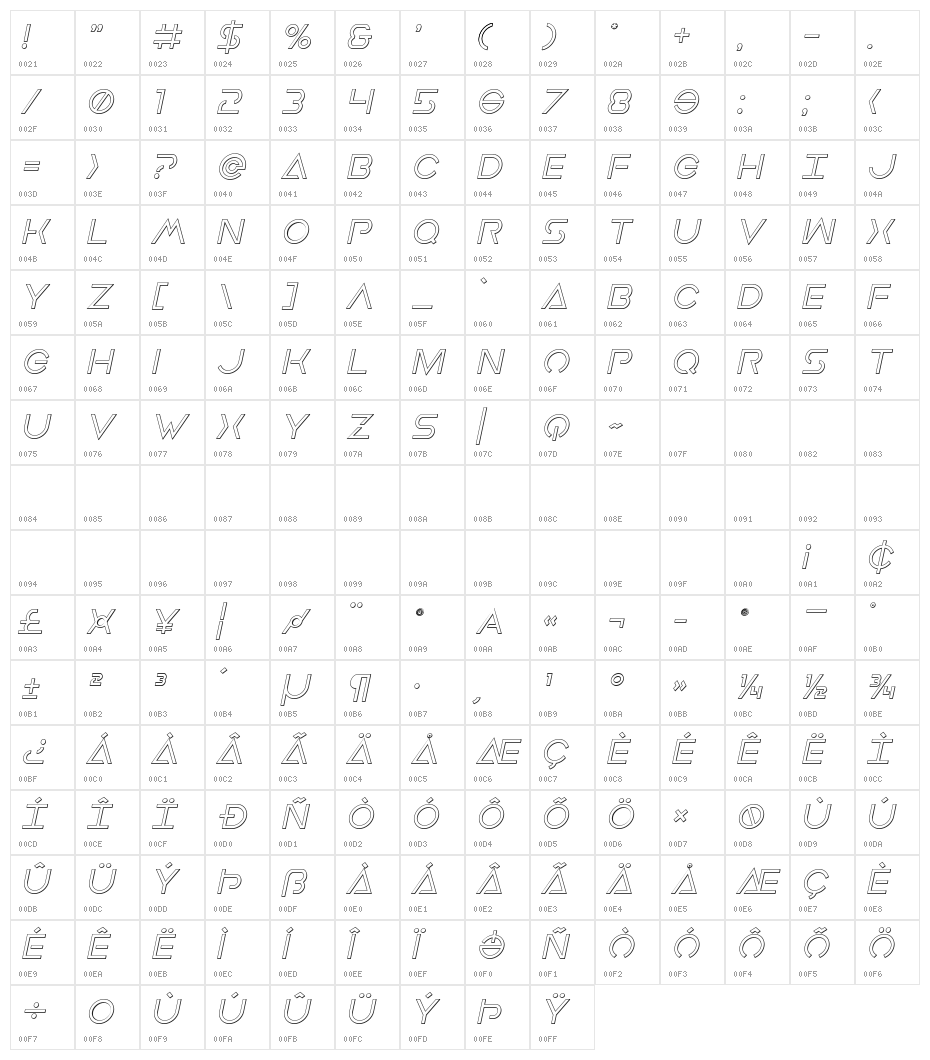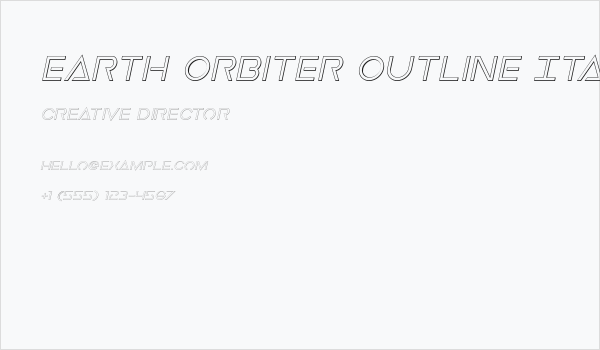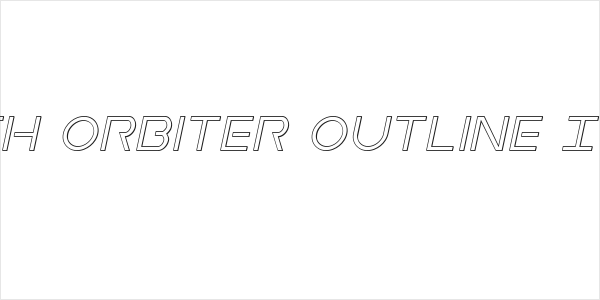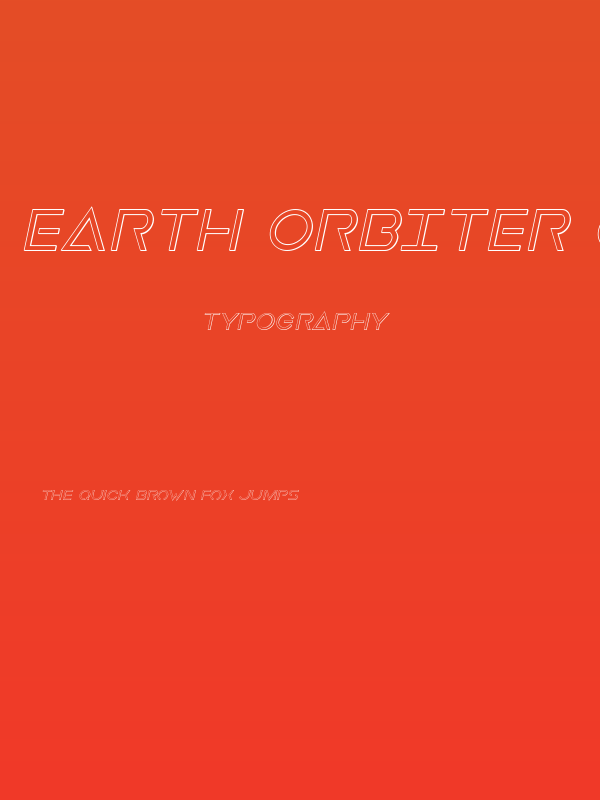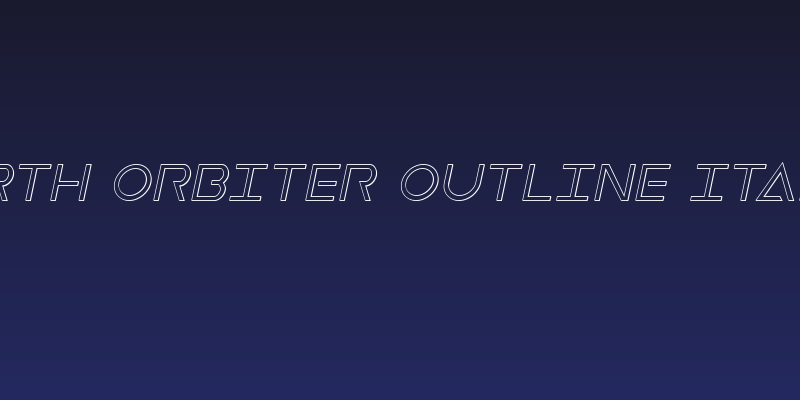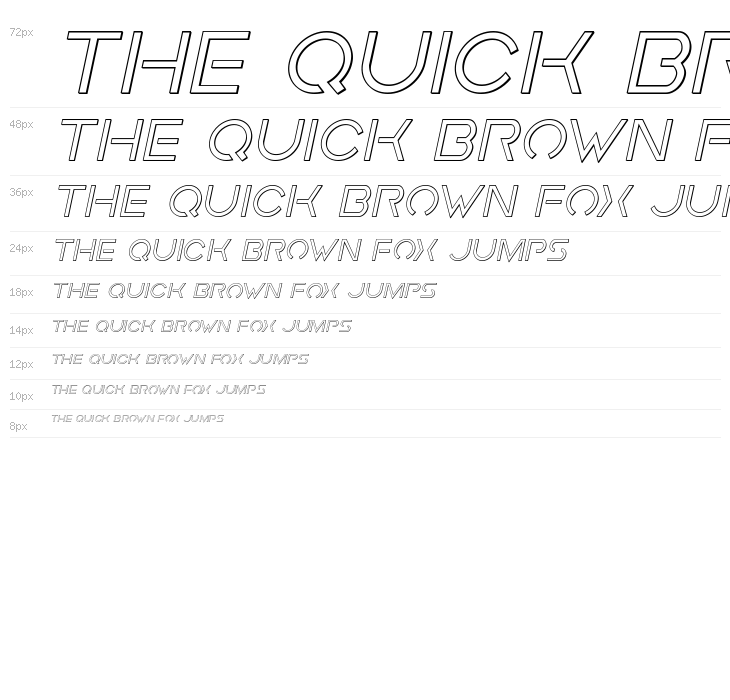
Earth Orbiter Outline Italic Font
Earth Orbiter Outline Italic Description
This font features a futuristic and geometric design with an outline style that gives it a modern and sleek appearance. The characters are italicized, adding a sense of motion and dynamism. Each letter is crafted with precision, showcasing clean lines and sharp angles. The uppercase and lowercase letters maintain a consistent style, while the numerals and special characters complement the overall aesthetic. The font's outline nature allows for creative layering and color usage, making it versatile for various design applications.
| Proposed Projects | Ideal for sci-fi themed projects, tech branding, modern posters, and digital artwork. |